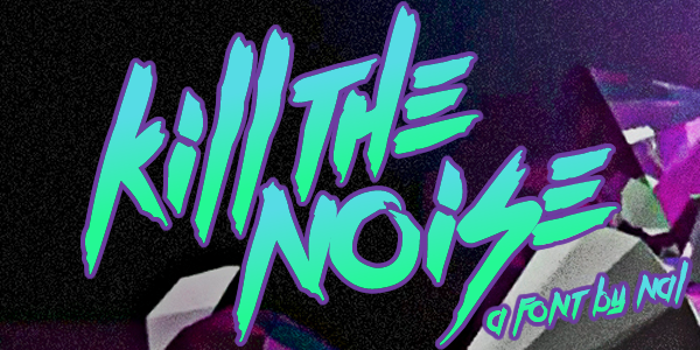
Kill The Noise Font
Kill The Noise Font is a Aggressive font and was created on . Since then, it has been downloaded 66,789 times and added to 592 collections. 28 people have liked Kill The Noise Font and given it a thumbs up.
Heavily inspired by dubstep musician "Kill the Noise" logo. Free for all use!
Please note: for kerning timesaving reasons, only the lower-case of this font is available. Repeat: please use lower-case!